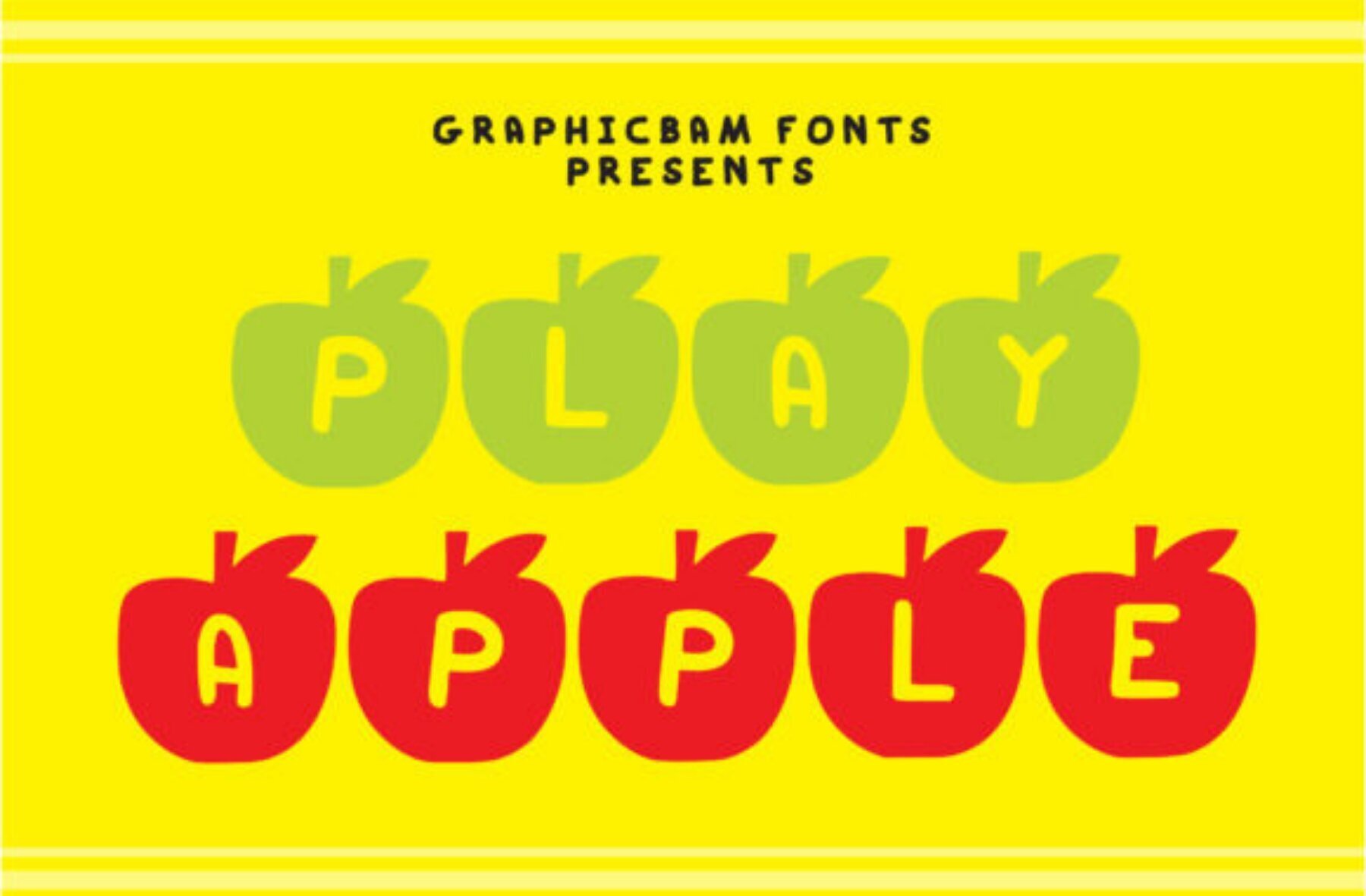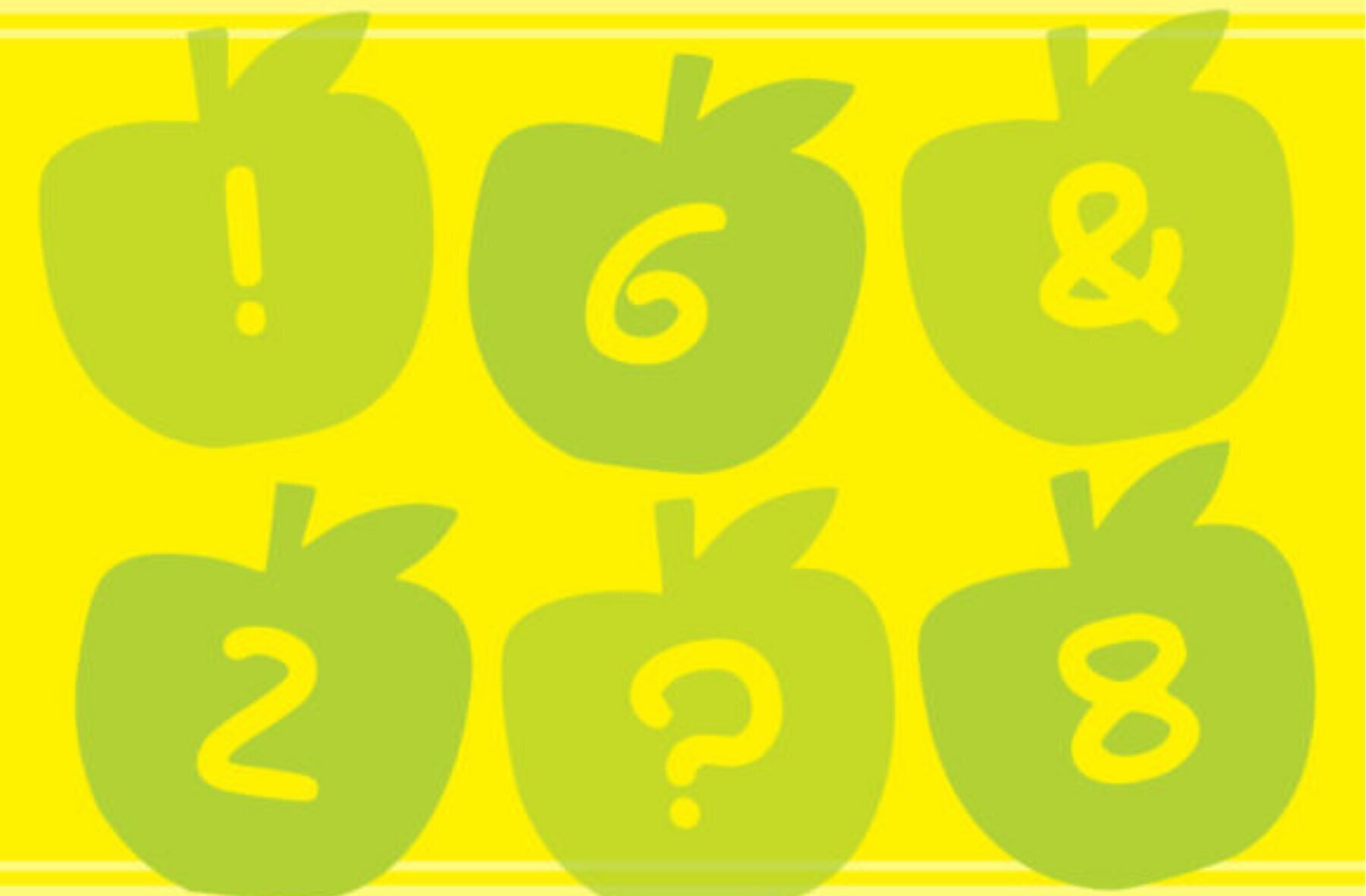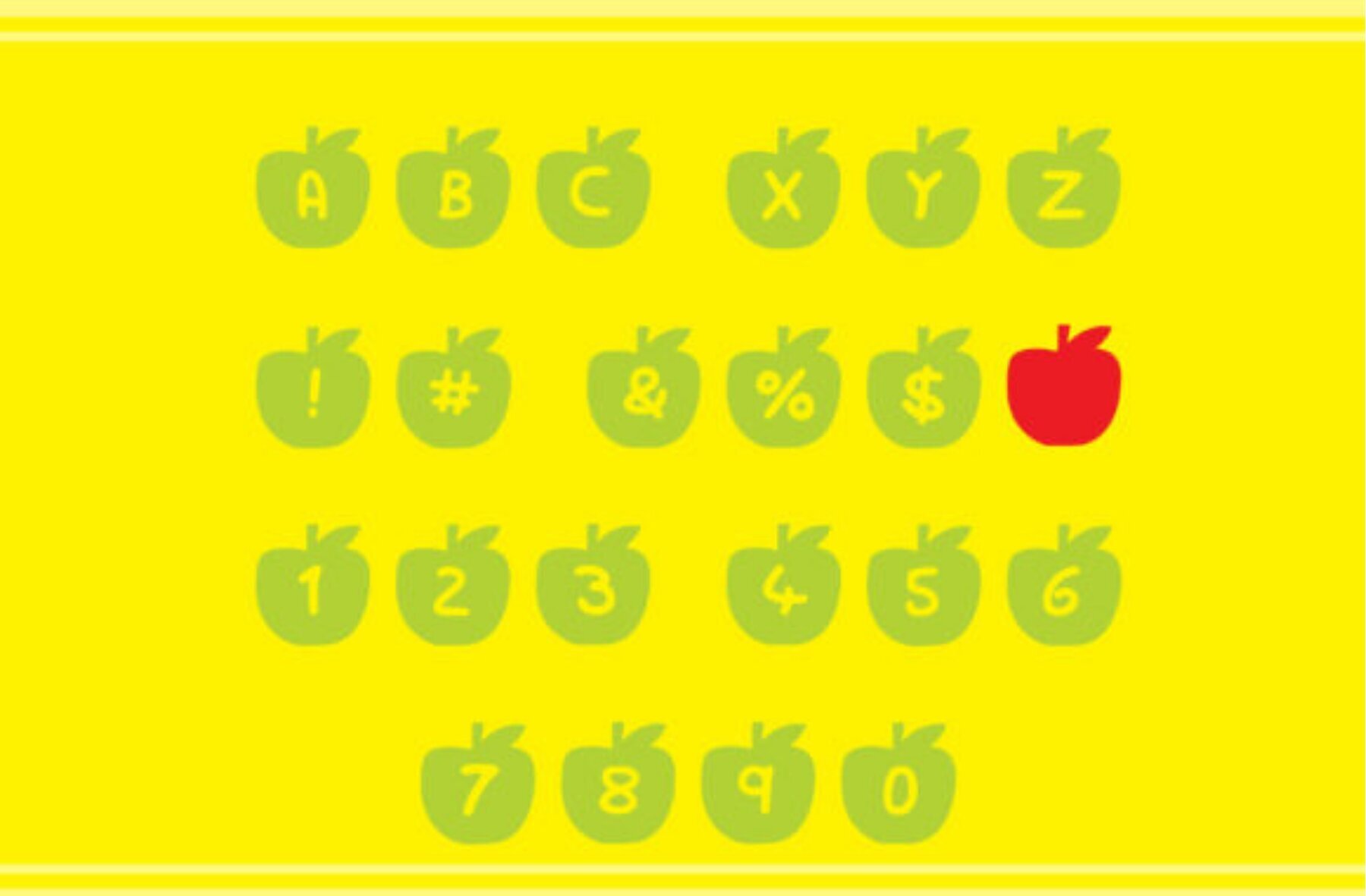
Play Apple Font
Play Apple Regular
Introducing the Play Apple font, a captivating decorative typeface that brings a unique twist to your typographic projects. Each character is designed with an apple motif, adding a touch of whimsy and distinction to any text. Perfect for creative projects, from playful branding to vibrant designs, this font offers a delightful visual punch.Play Apple Font